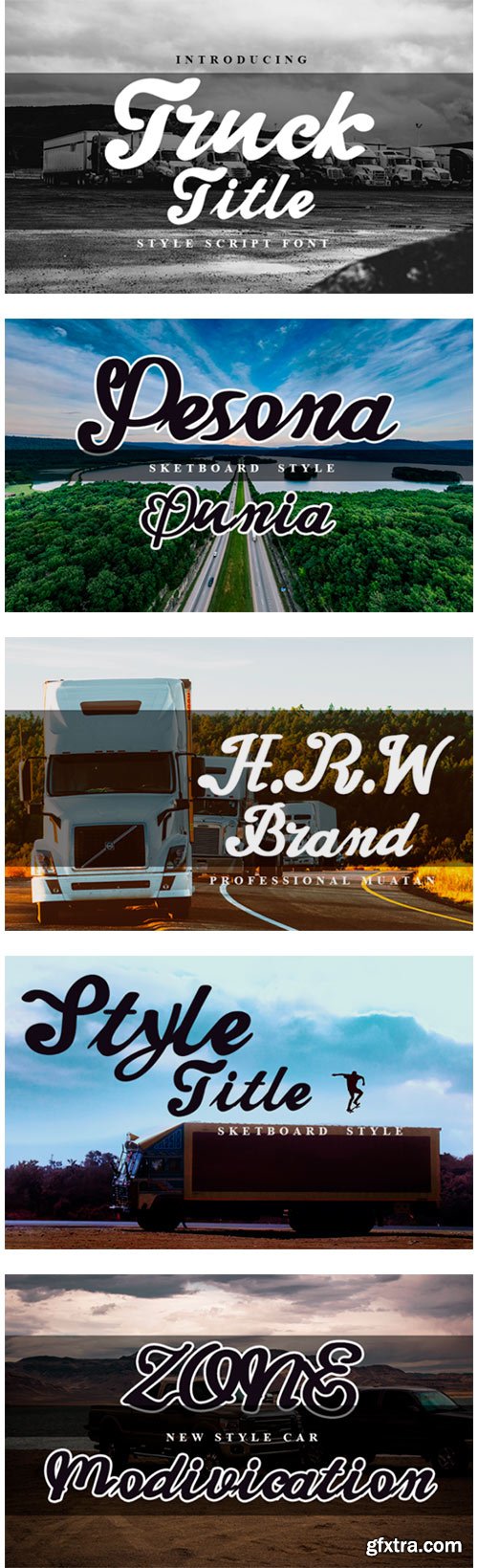
Truck Title Font
Truck Title is a cute and casual handwritten font with an incredibly friendly feel. Whether it’s for web, print, moving images or anything else – Truck Title will look spectacular.